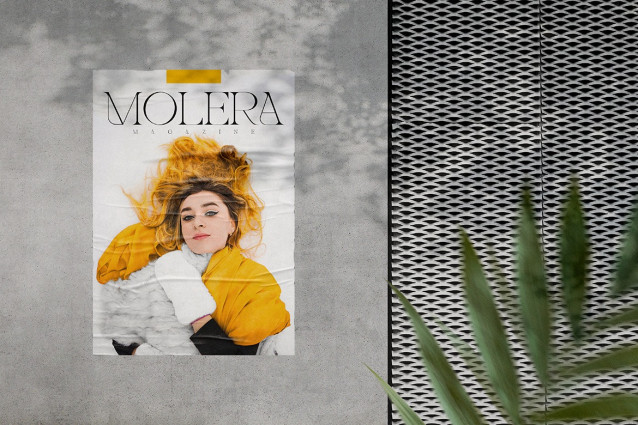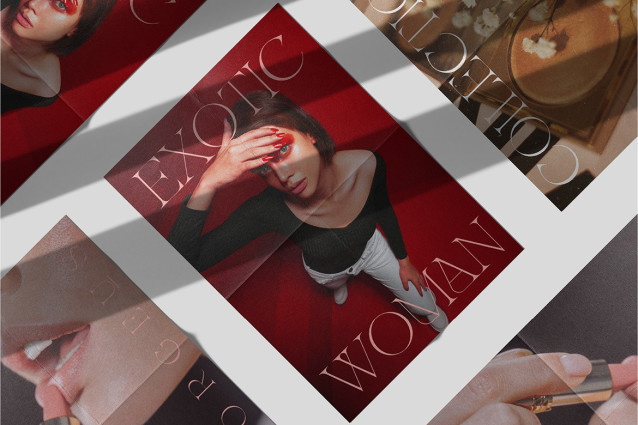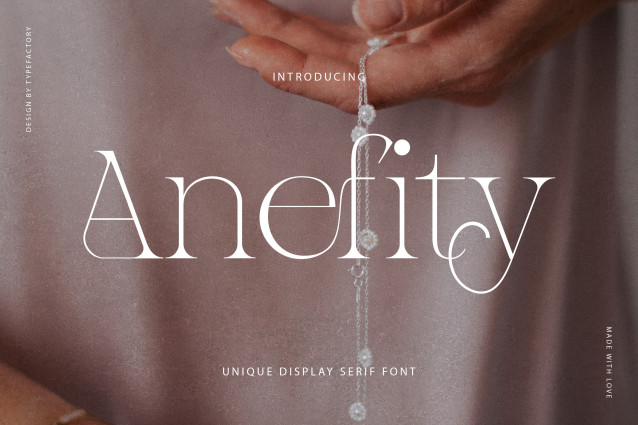
Anefity Font
Anefity Font is a unique display serif font that blends classic elegance with contemporary flair. Designed with distinctive curves and refined serifs, Anefity adds a sophisticated touch to any design project. Ideal for branding, editorial layouts, logos, packaging, and headlines, this font delivers a bold and memorable presence. Its eye-catching letterforms and stylish character make it perfect for projects that require a modern yet timeless serif aesthetic. Elevate your typography game with the artistic personality of Anefity.